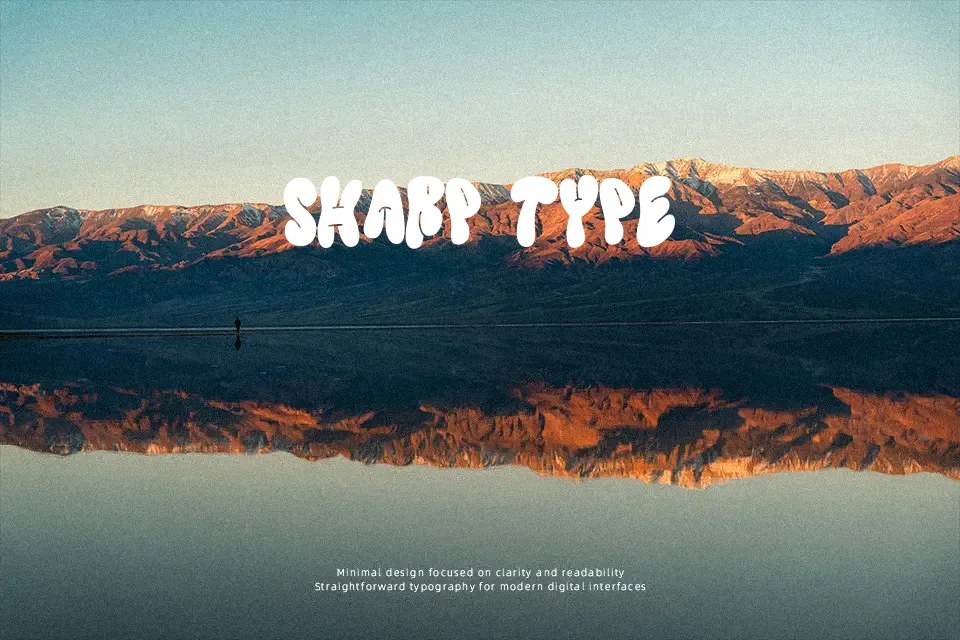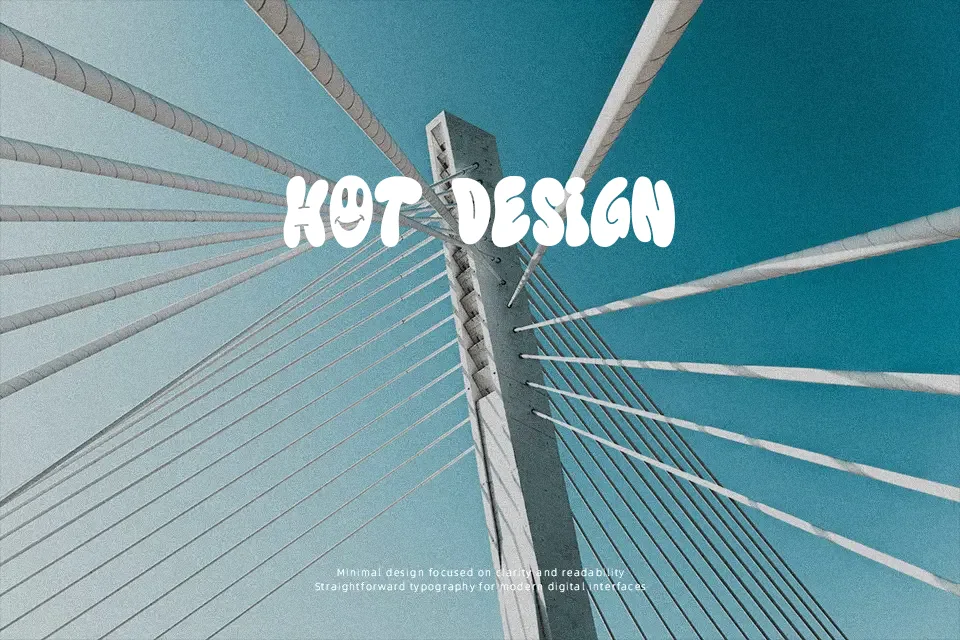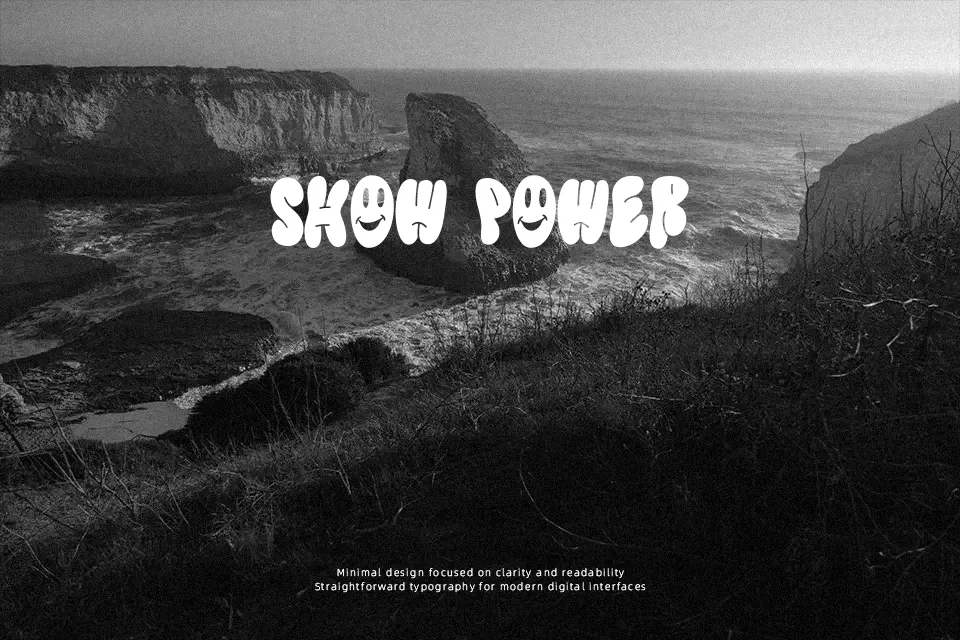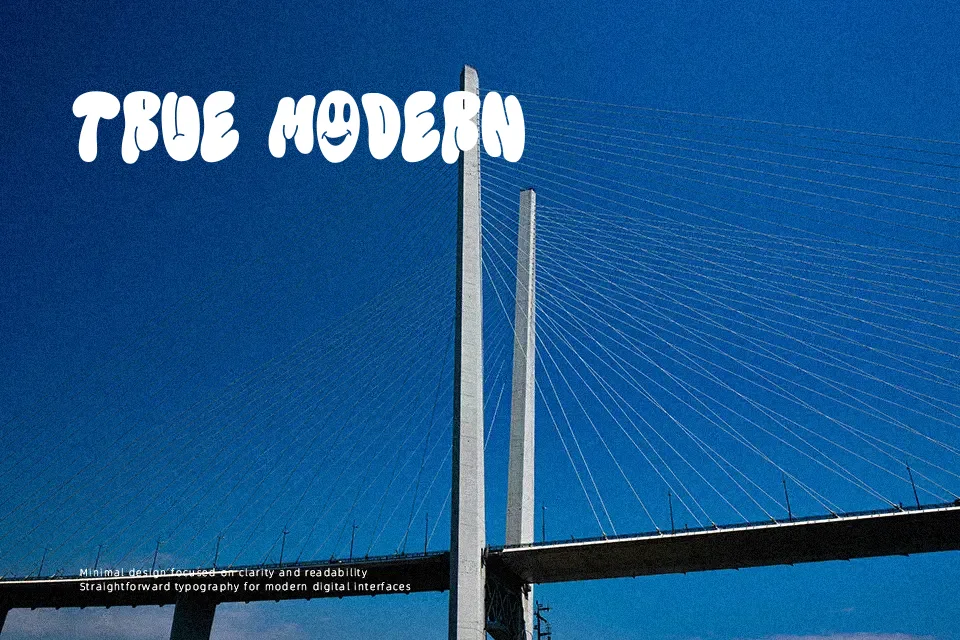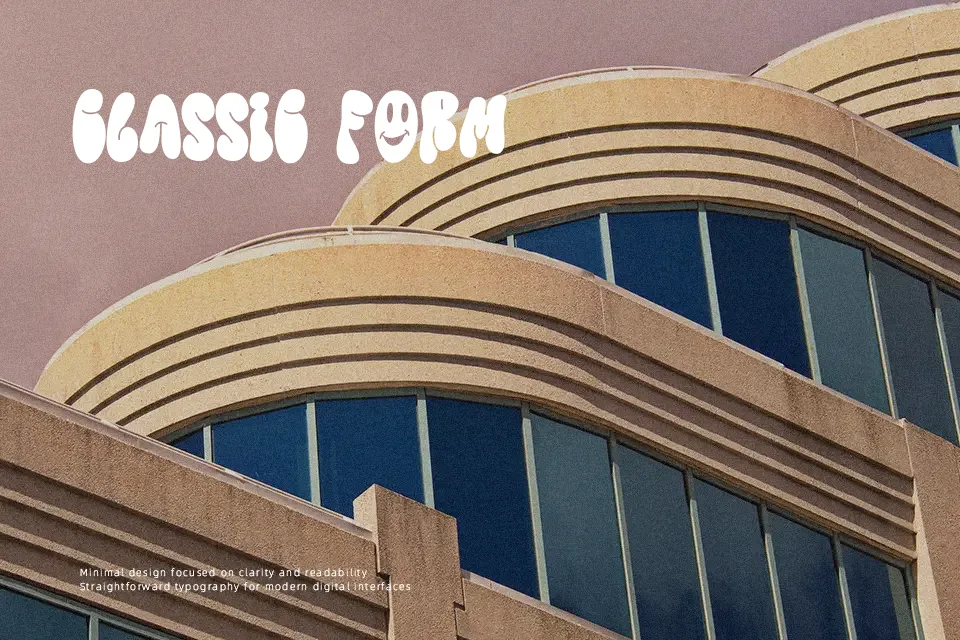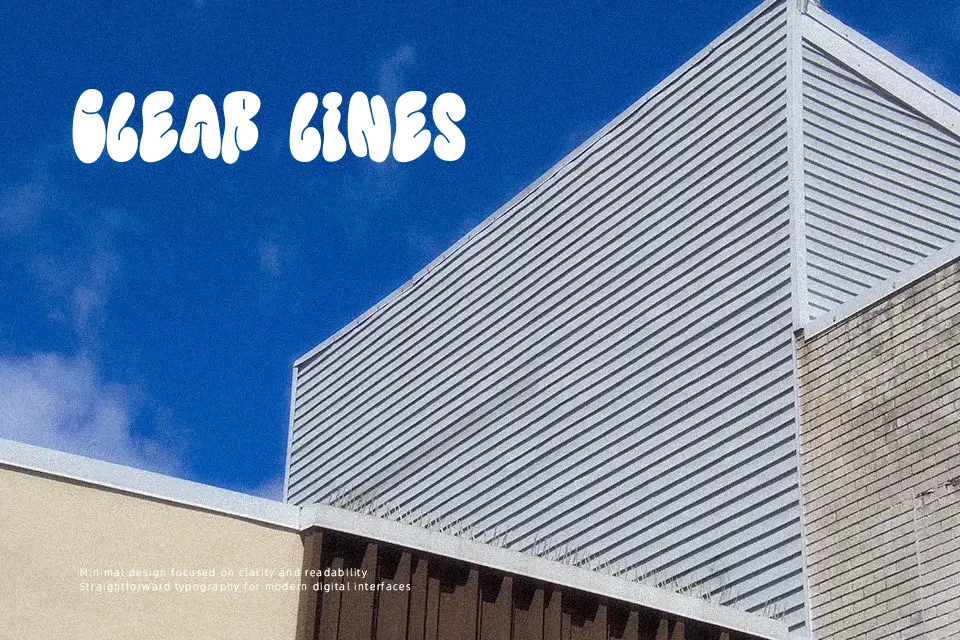
TF Madloud Font
TF Madloud Font showcases chunky cartoon lettering defined by swollen proportions, smooth rounded corners, and almost non-existent stroke contrast. Compact letter spacing reinforces the dense, inflated weight of each character, yielding striking graphic presence across medium and large display compositions. The letterforms excel in expressive comic book titling, casual gaming assets, and skate merchandise graphics where an informal street aesthetic is essential. However, the exaggerated bulk fills enclosed counters and compromises legibility in dense text blocks, rendering the design unsuitable for extended reading.
Best For: streetwear apparel graphics, skate deck stickers, casual gaming badges, comic book title logos
Not Ideal For: continuous body text, mobile interface labels, corporate annual reports, dense editorial layouts
Perfect for branding, gaming, and logo, with a bold and cartoon style.